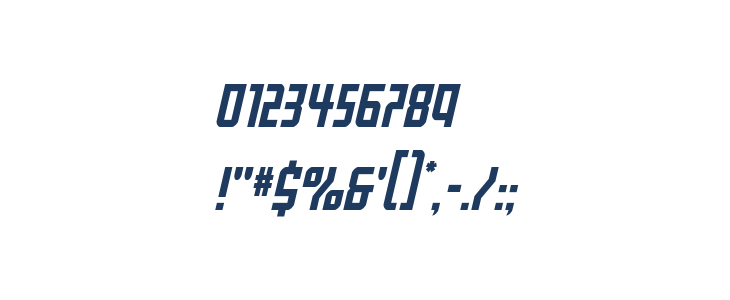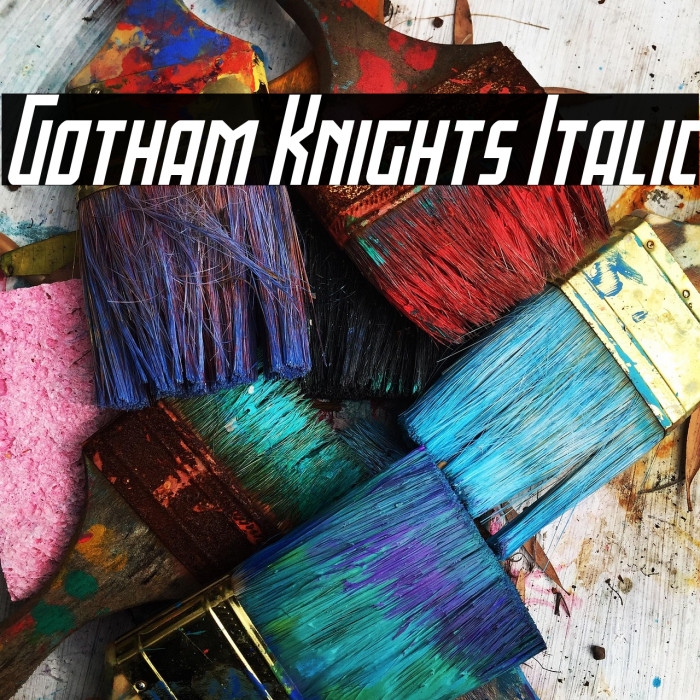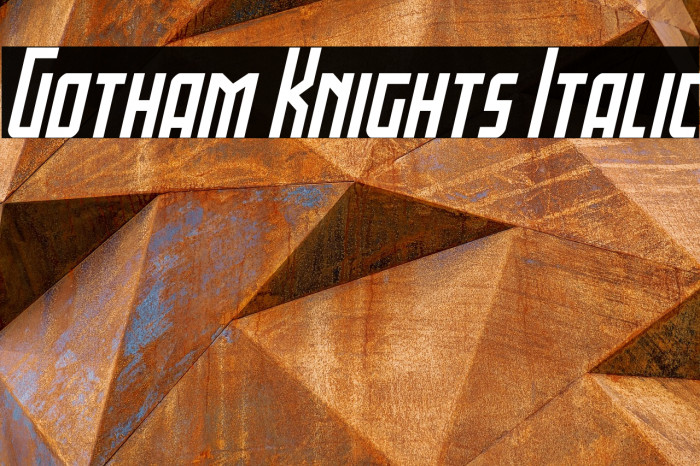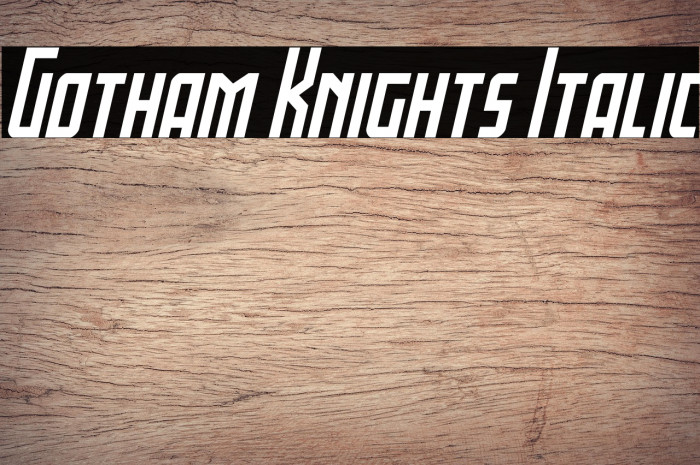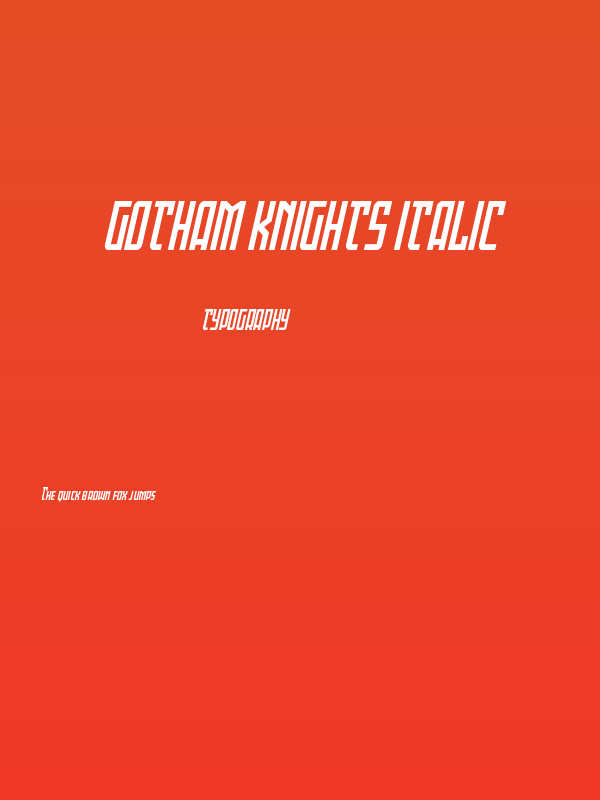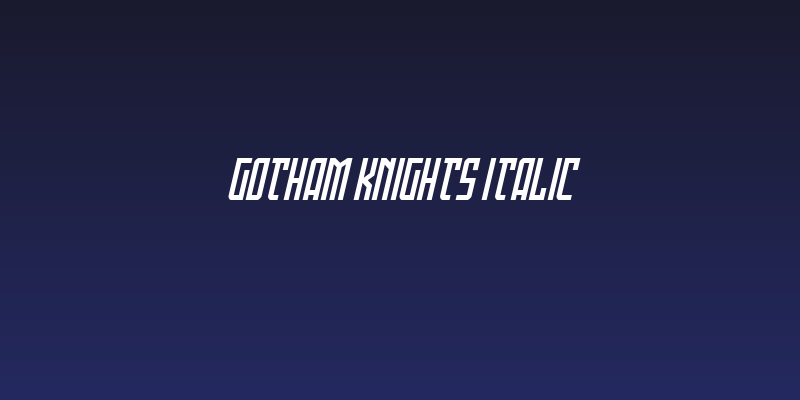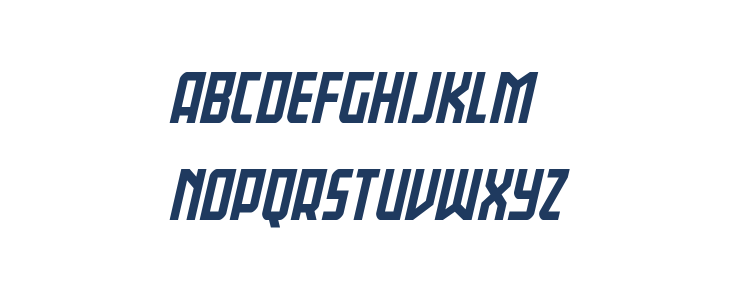
Gotham Knights Italic Font
Gotham Knights Italic Description
This font features a bold, italicized style with a modern and dynamic appearance. The characters are slightly slanted, giving a sense of movement and energy. The uppercase letters have a strong presence with sharp angles and clean lines, while the lowercase letters maintain consistency in style. The numbers are equally bold and maintain the same angular design, ensuring readability and impact. Special characters are designed to match the overall aesthetic, making them suitable for various applications. The font's design is ideal for projects that require a bold statement, such as branding, posters, and headlines.
| Proposed Projects | Ideal for branding, posters, headlines, and any project needing a bold statement. |